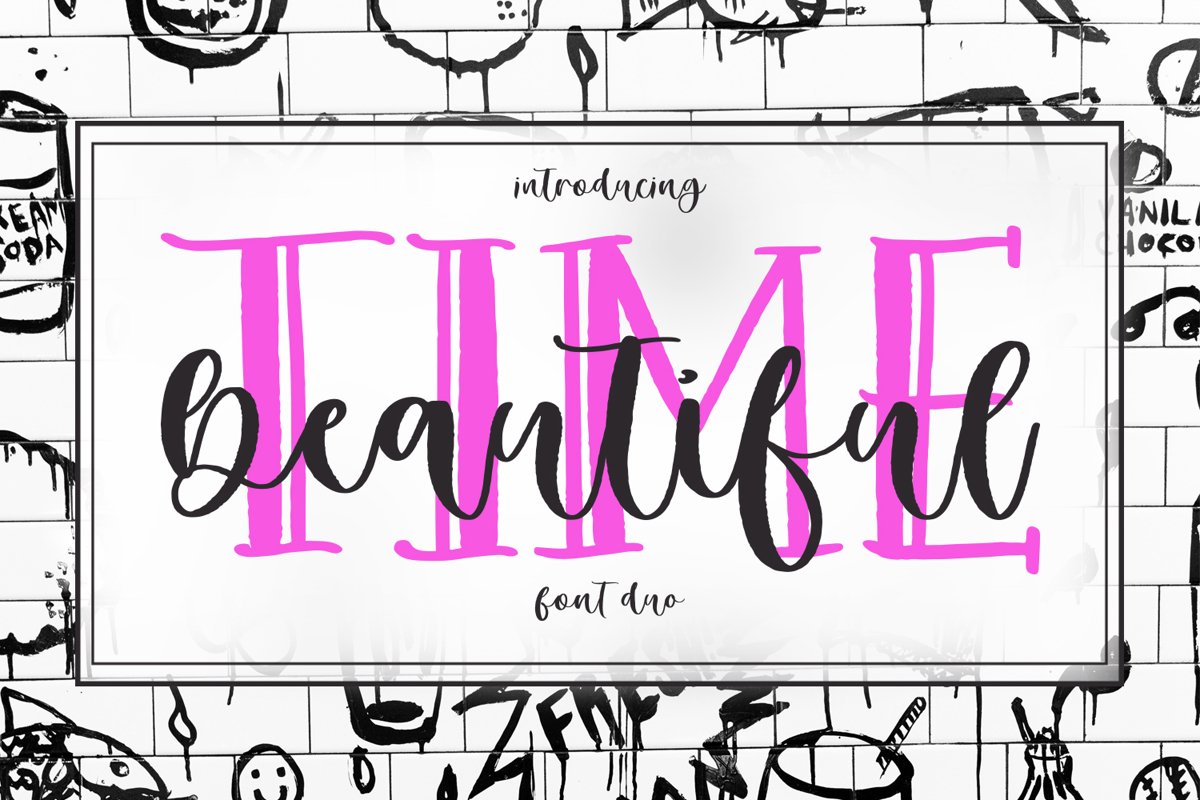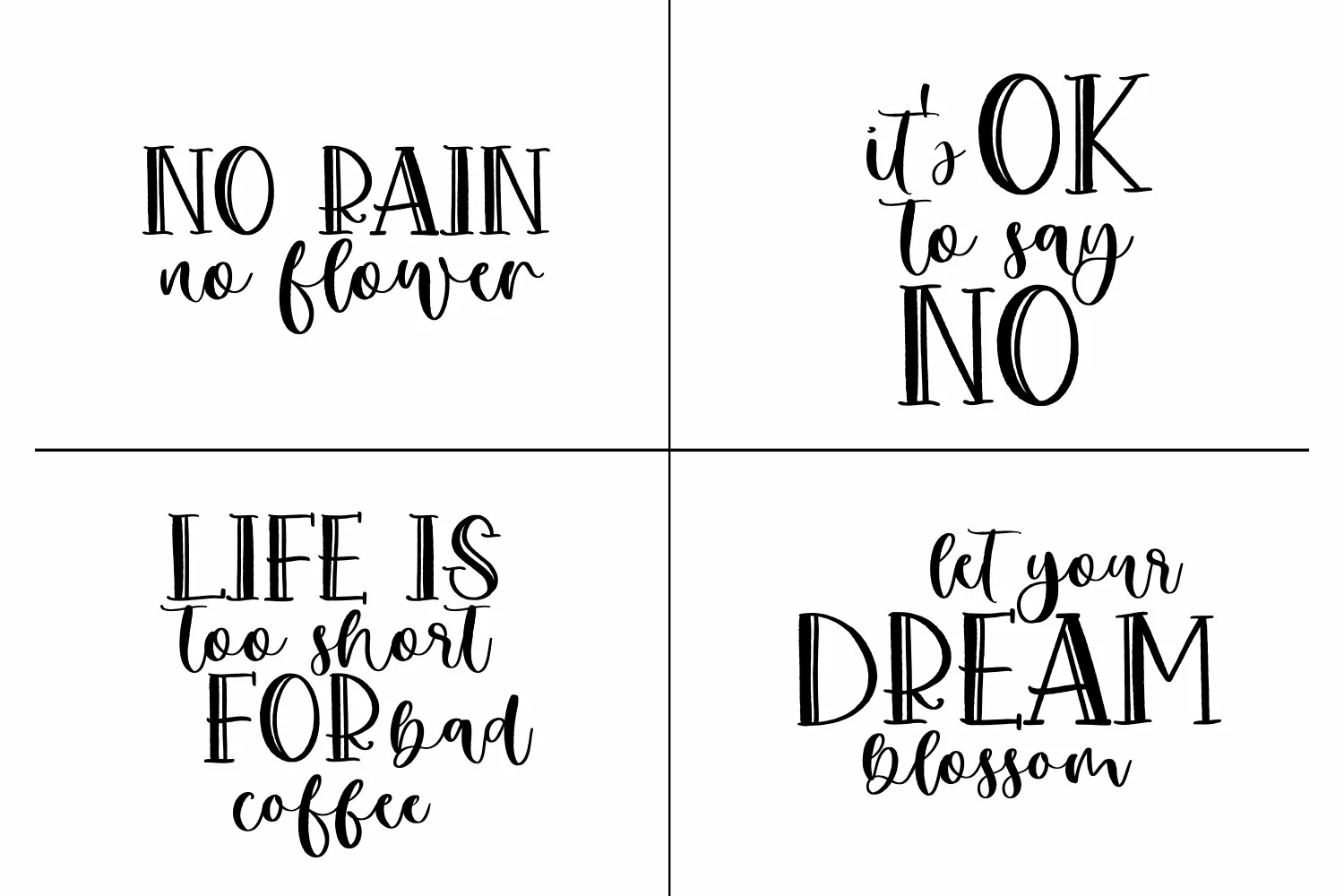
Beautiful Time Font Duo - textured font duo
Beautiful Time.otf - all uppercase serif font, numbers, punctuation
Beautiful Time Script.otf - standart and alternate uppercase, lowercase, numbers, punctuation